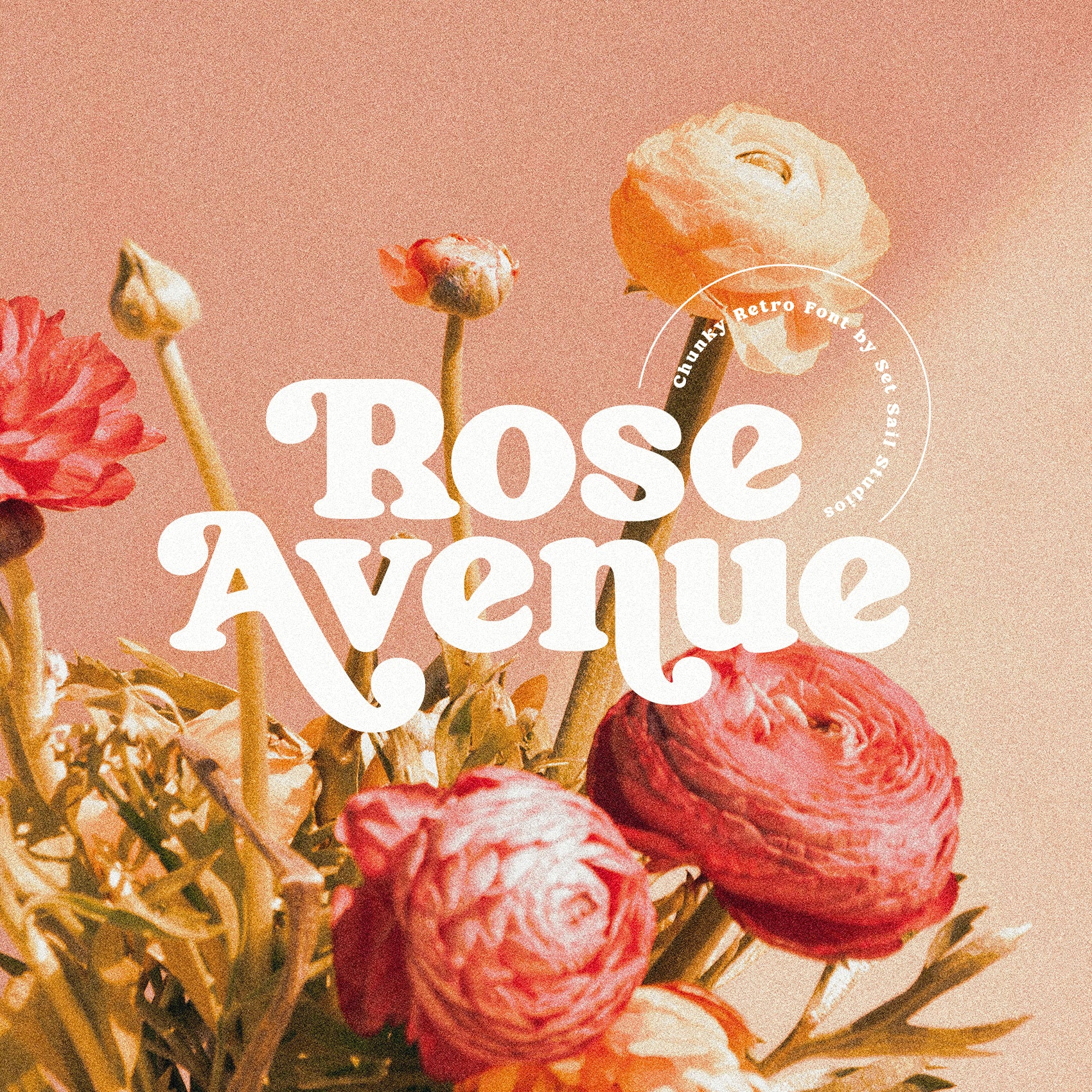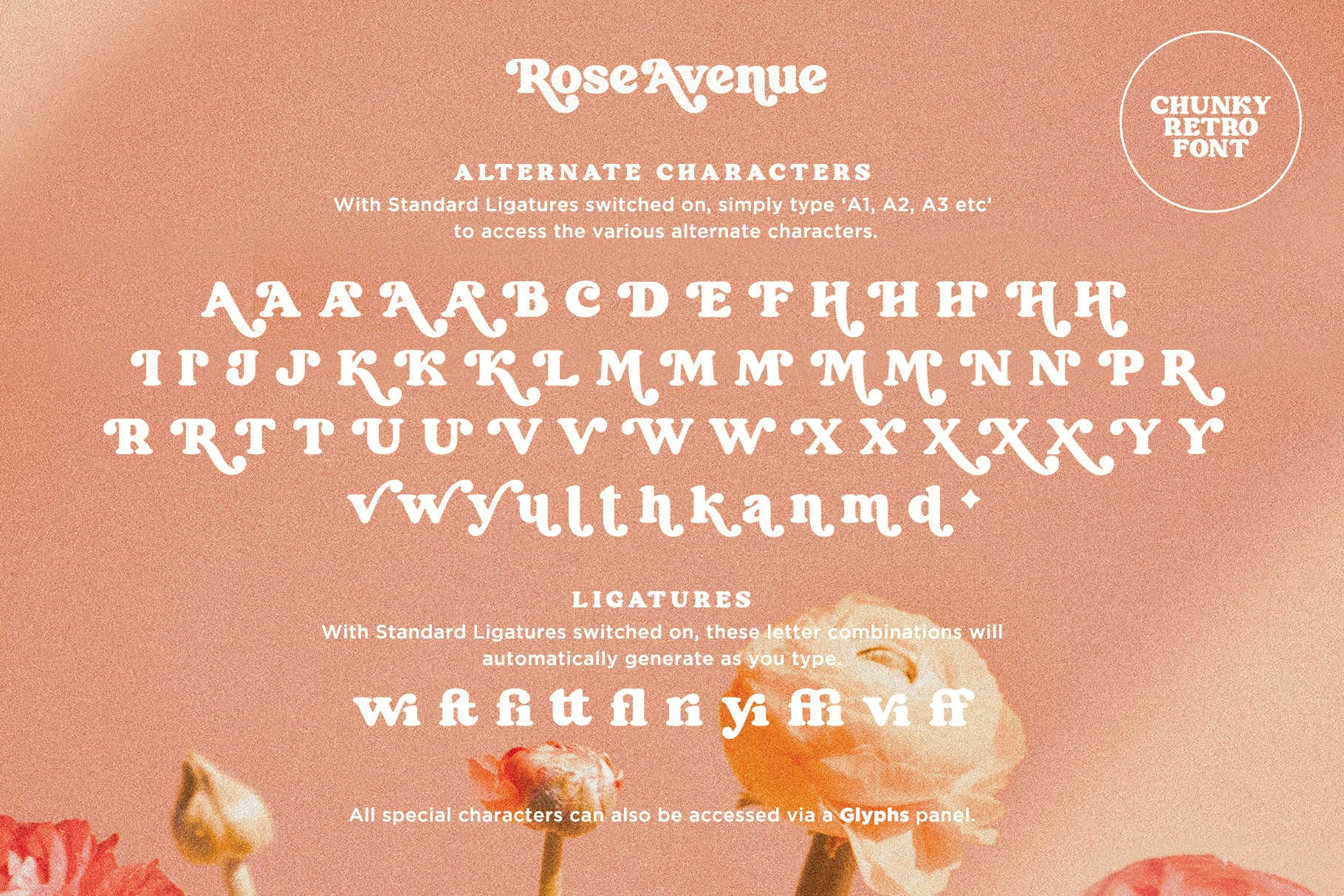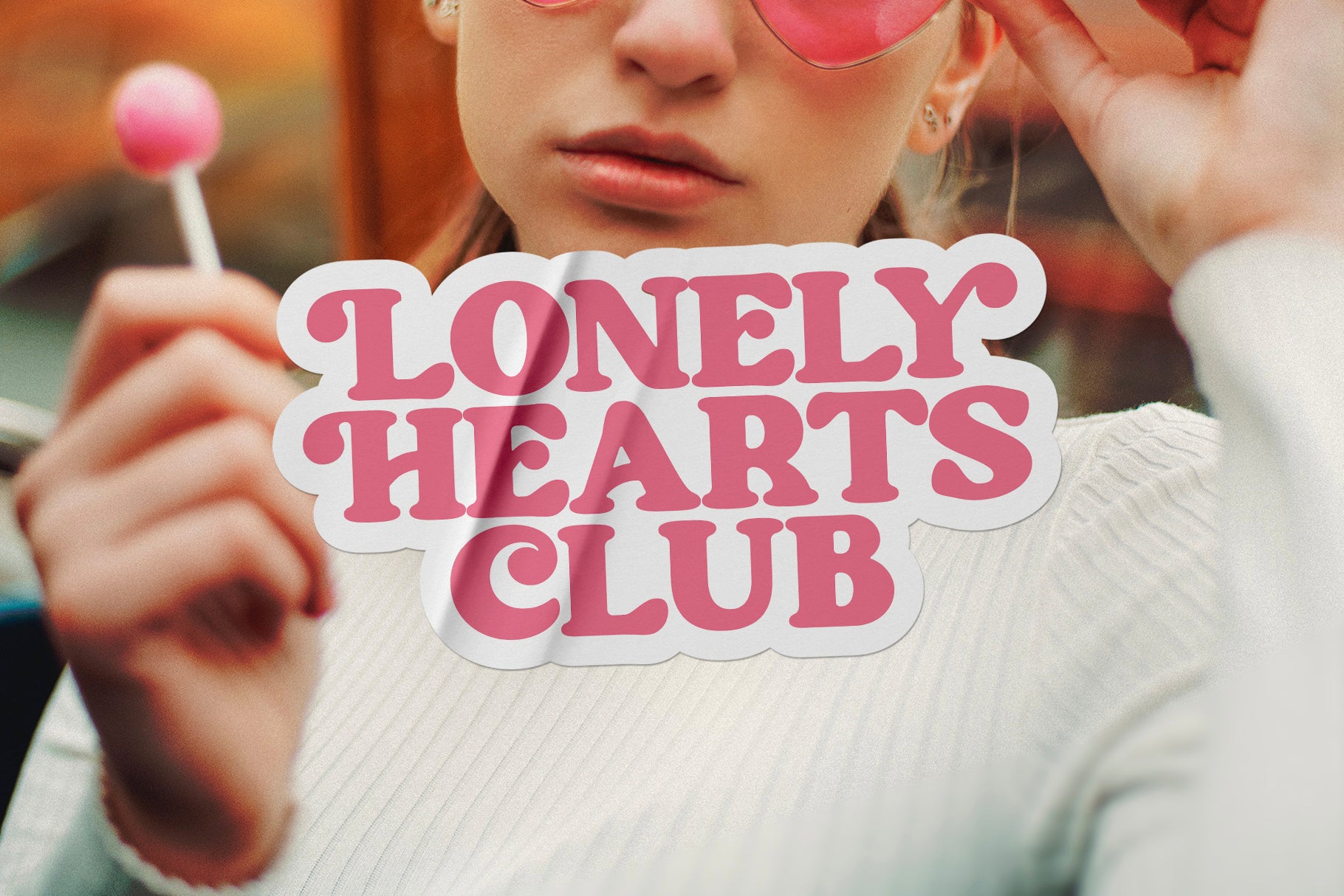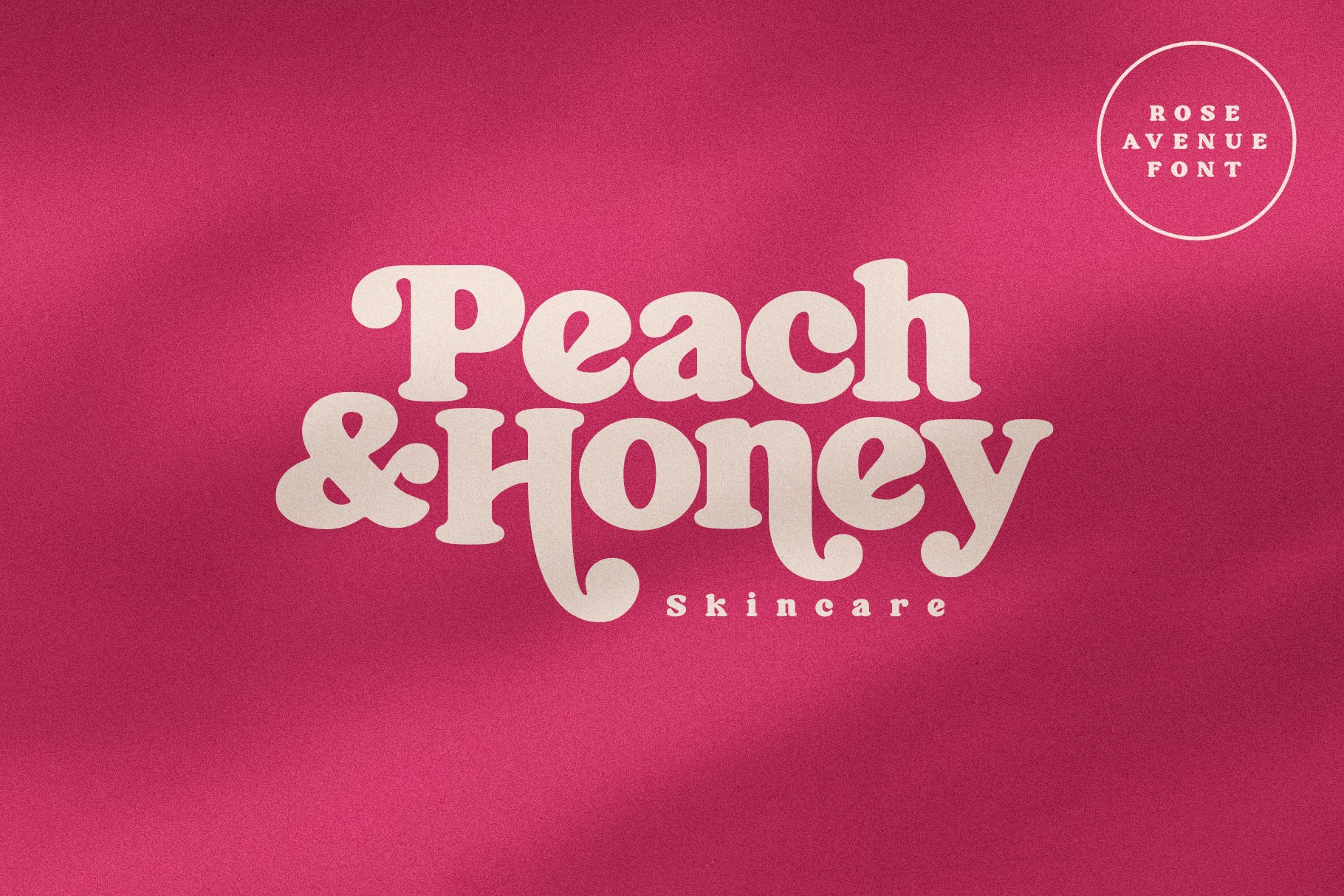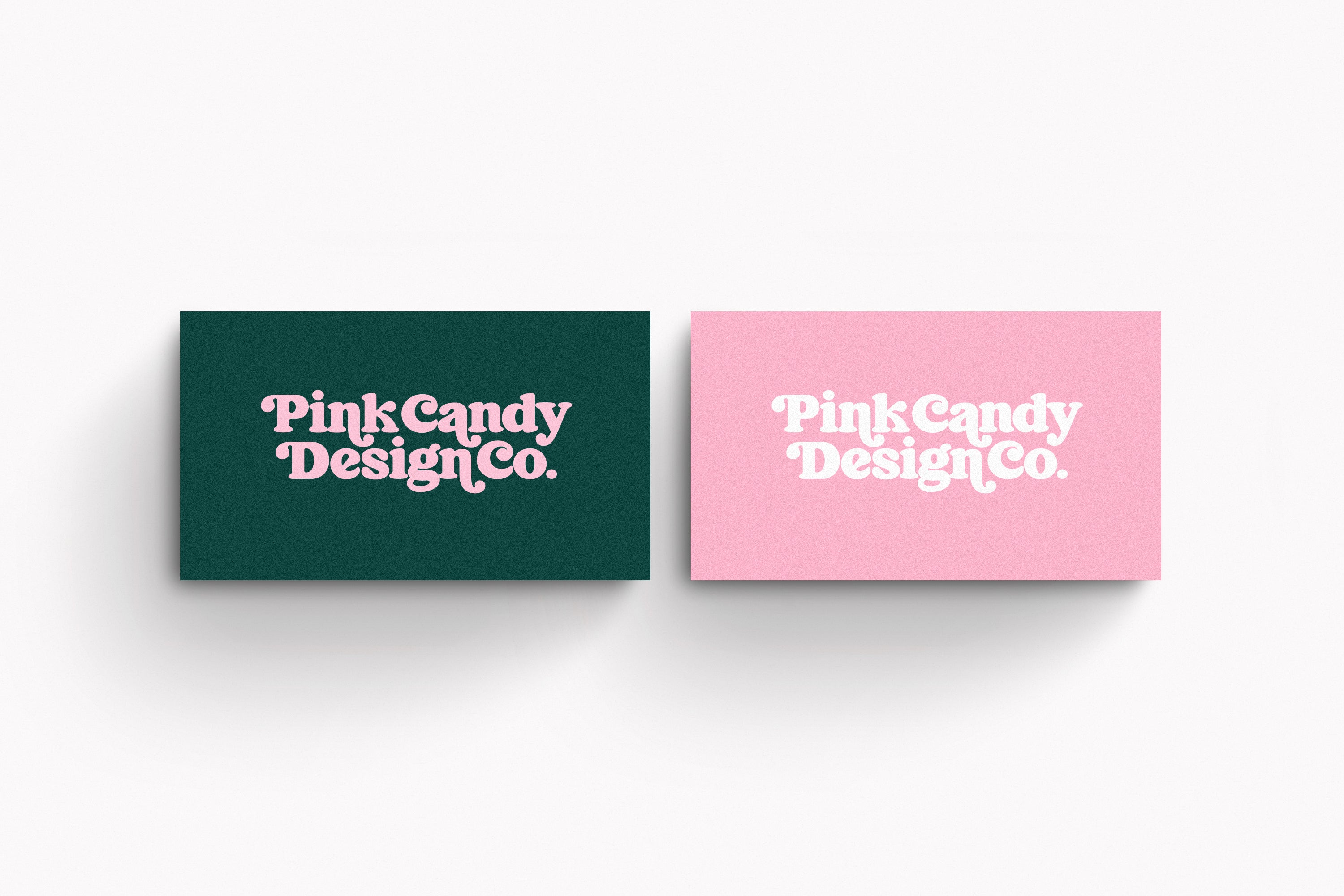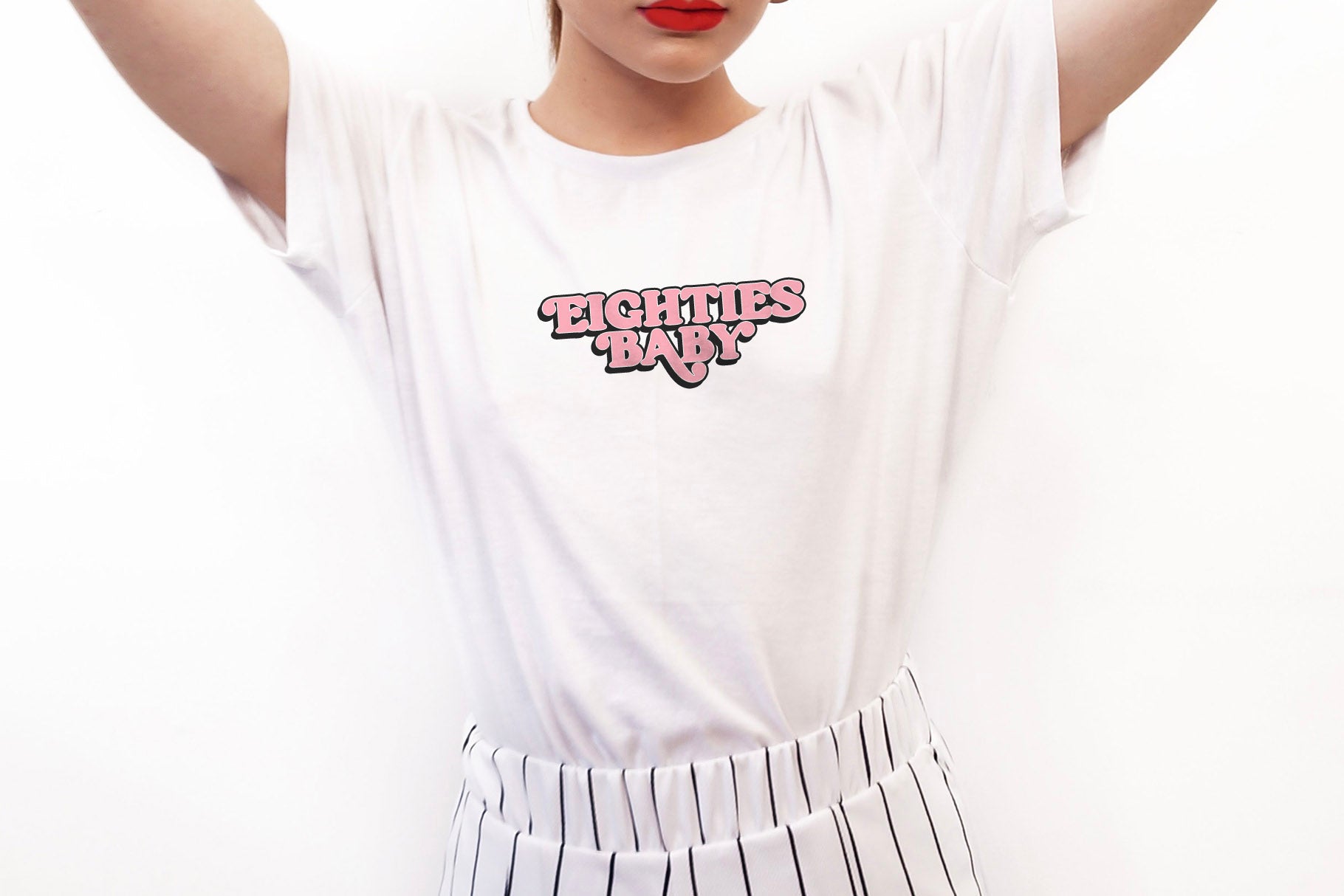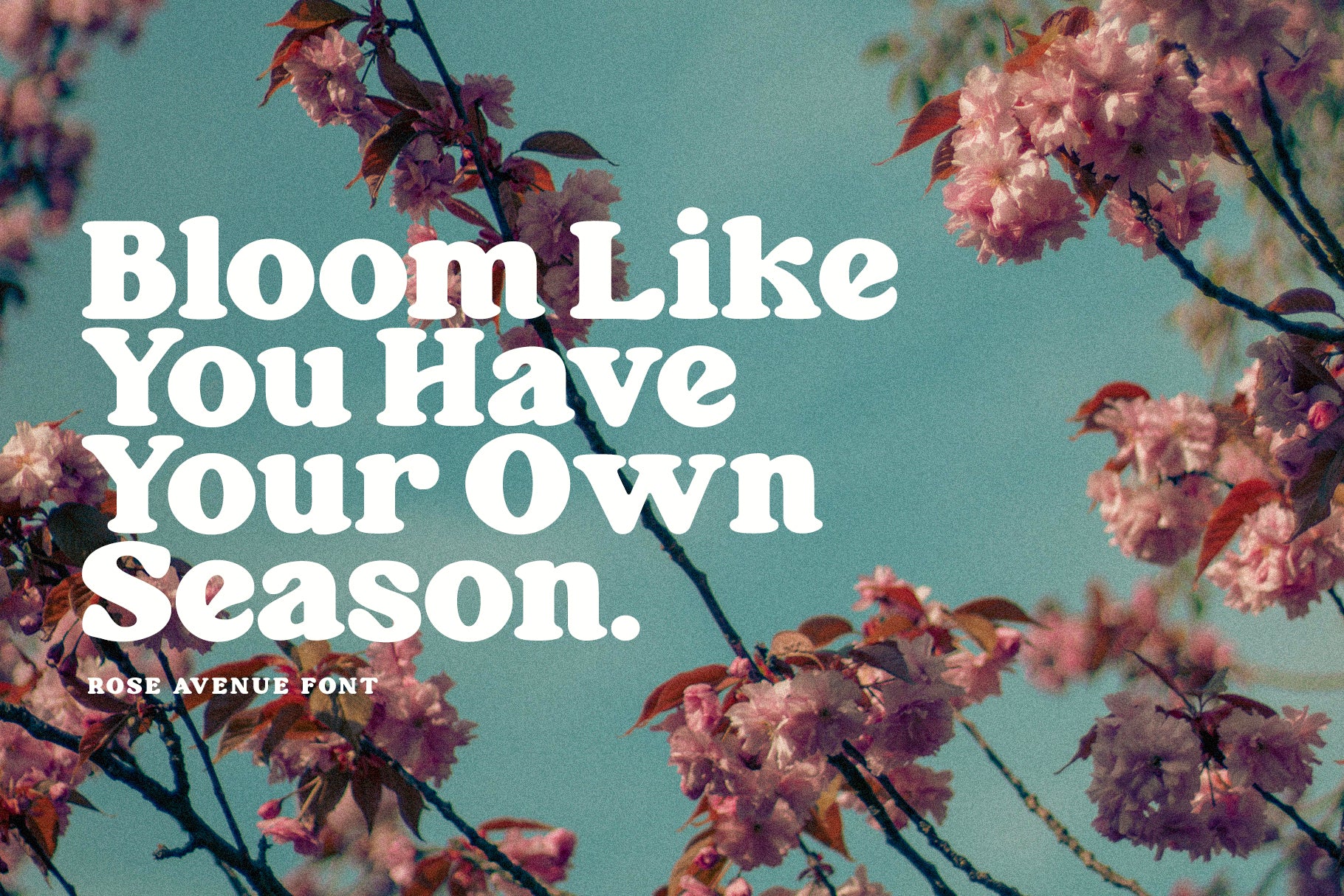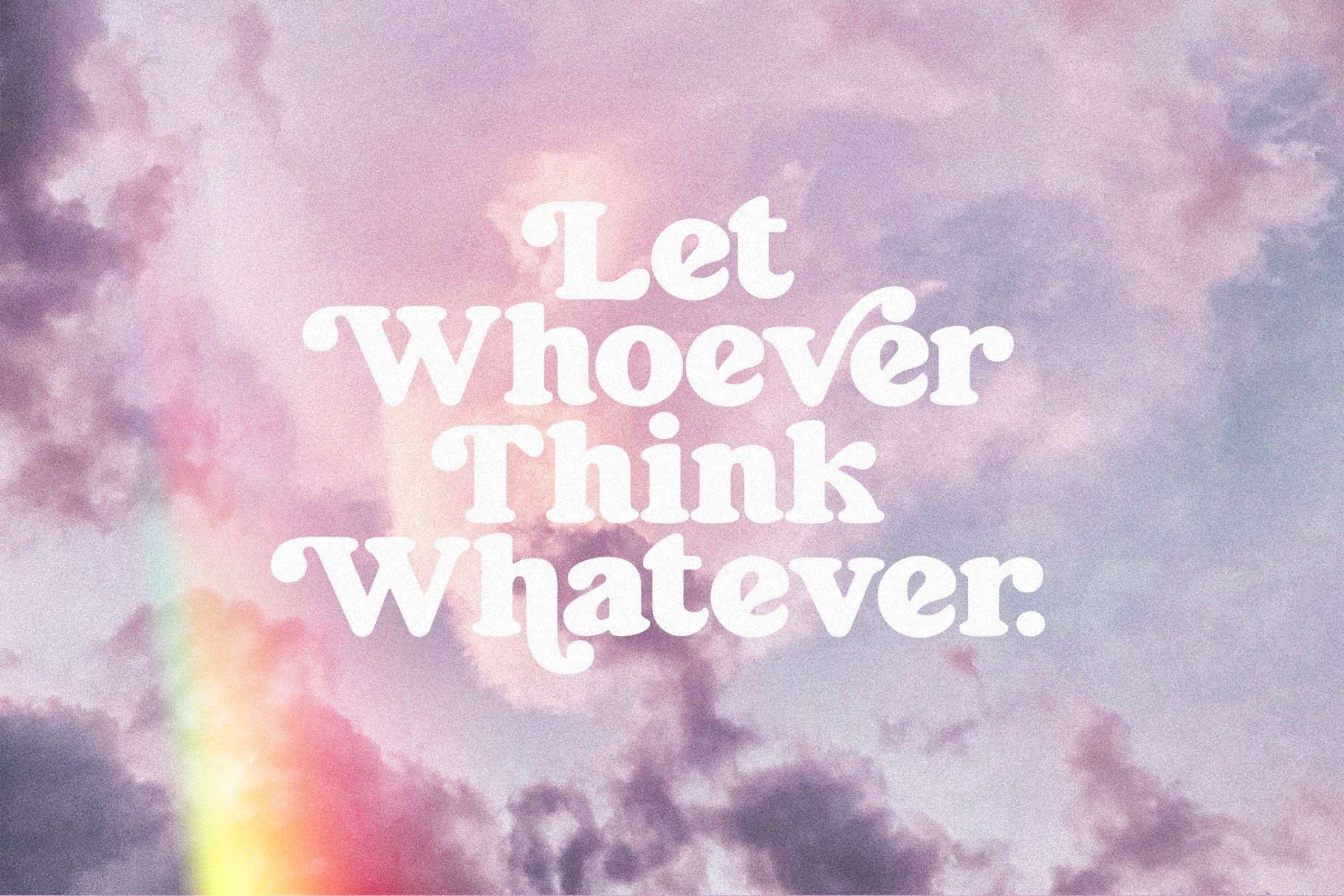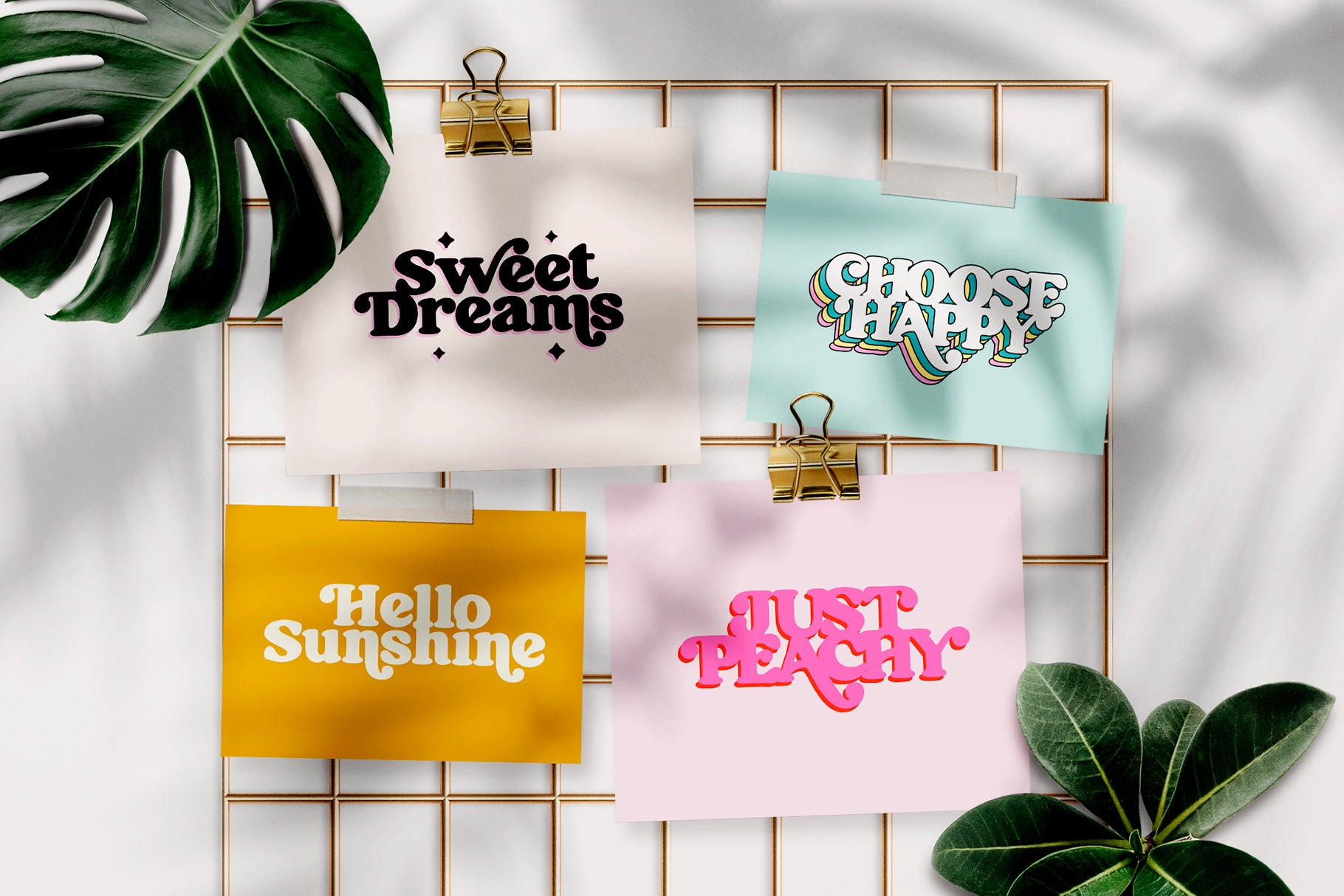
Rose Avenue Font
Rose Avenue is an extra bold serif font featuring soft, rounded edges and curves, designed with chunky retro typography. It includes 70 additional special characters, alternate versions for many letters, and 10 lowercase ligatures, supporting multiple languages such as English, French, Spanish, and more.